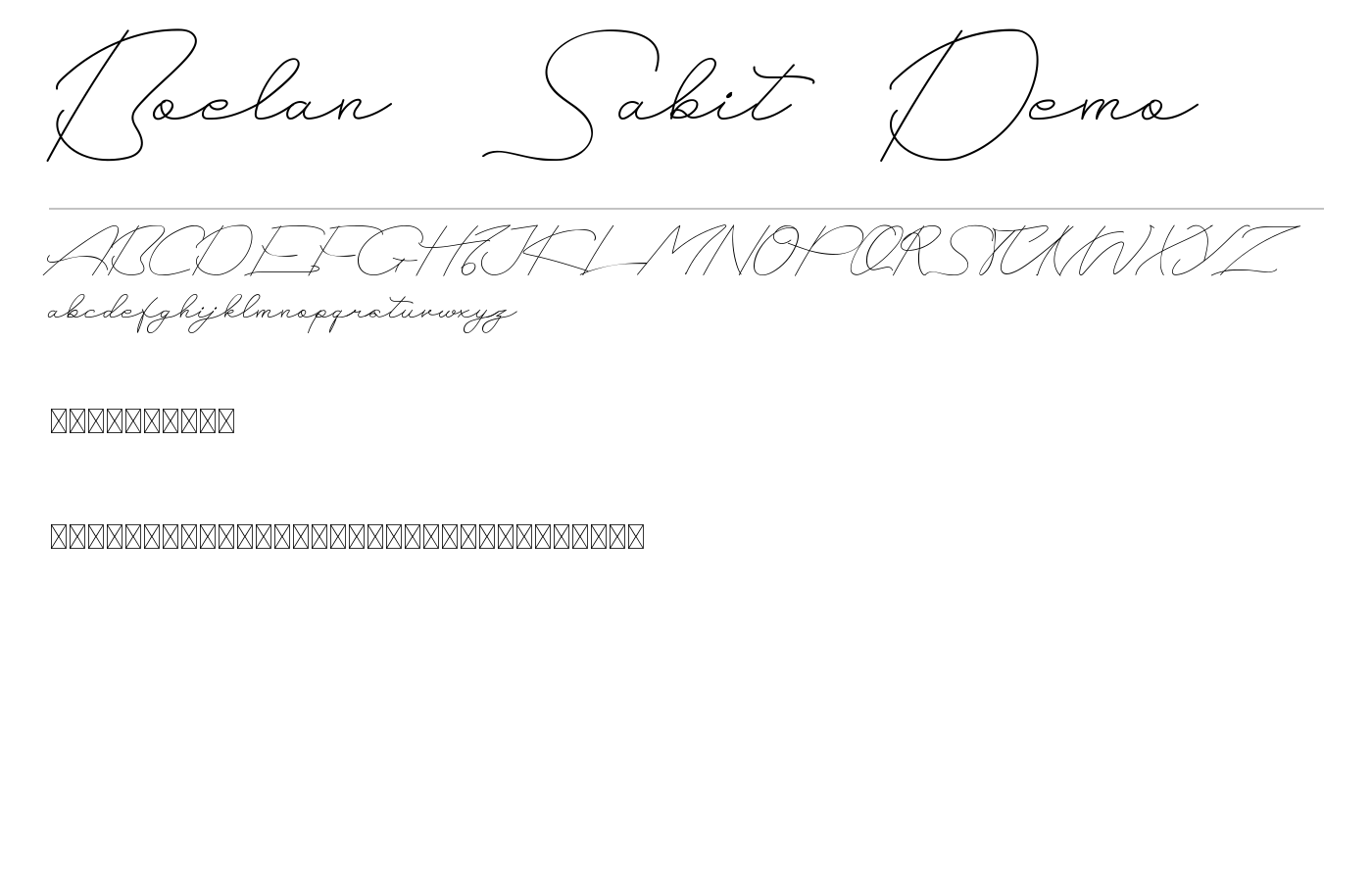
Boelan Sabit Demo is a delicate, elegant script font featuring slender, flowing letterforms that mimic natural handwriting with a refined and airy touch. Its light weight and graceful curves make it perfect for adding a sophisticated, personal feel to invitations, branding, and editorial designs. This font works beautifully in contexts where a subtle, stylish, and modern handwritten look is desired.
Boelan Sabit Demo Font
About Boelan Sabit Demo Font
| Designer | Yasri Ainun N & Sarah Suci P |